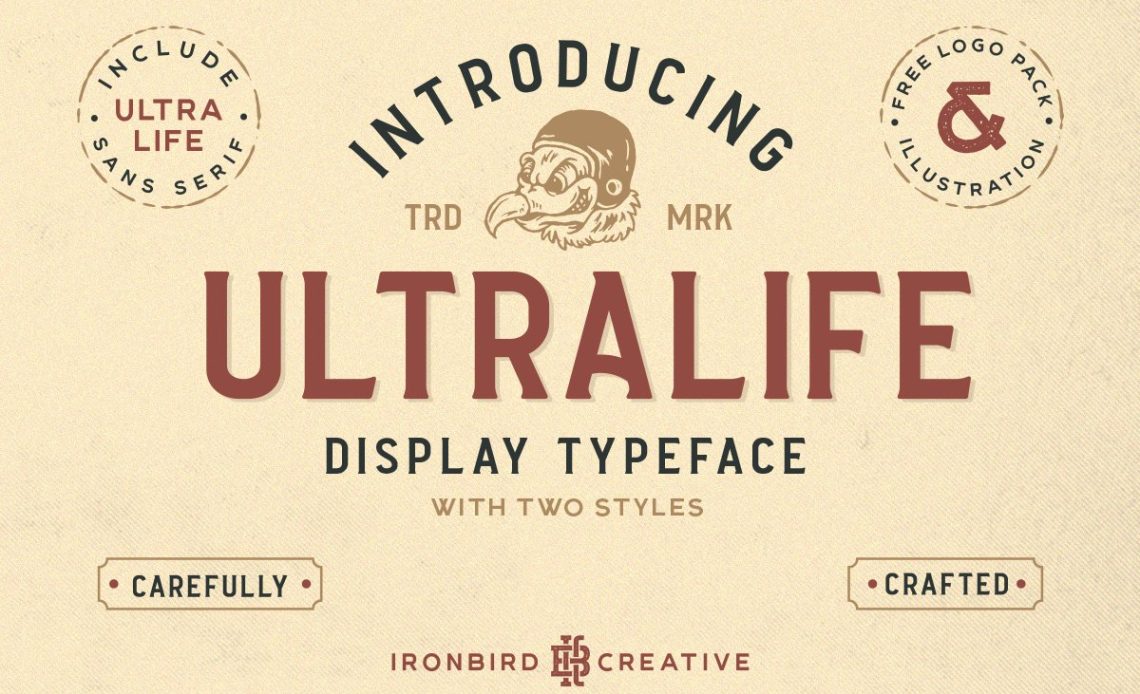
Introducing the Ultralife Typeface! Created by Ironbird Creative, this display typeface family is a must-have for your design projects. With its two fonts, Ultralife and Ultralife Sans, and two styles, clean and stamp, this font collection offers versatility and endless possibilities.
Why choose Ultralife Typeface? Well, let us tell you! This font is perfect for logotypes, apparel designs, invitations, branding, packaging, advertising, and so much more. It's designed to make your creations stand out from the crowd and leave a lasting impression on your audience.
One of the standout features of Ultralife Typeface is its multilingual support. With support for over 20 different languages, including AÀ�ÂÃÄÅCÇD�EÈÉÊËIÌ�Î�NÑOØÒÓÔÕÖUÙÜÚÛWY�ŸỲŸÆŒßÞþ, you can easily reach a global audience and cater to diverse markets. No matter where your customers are, Ultralife Typeface has got you covered.